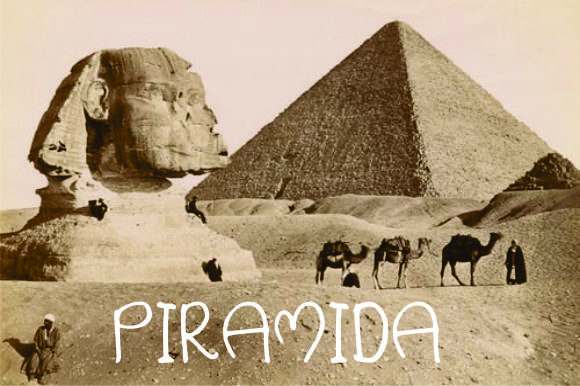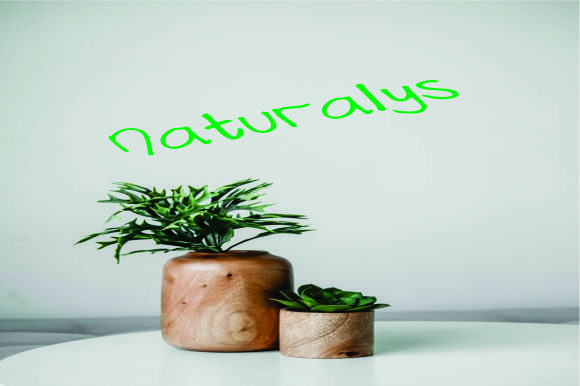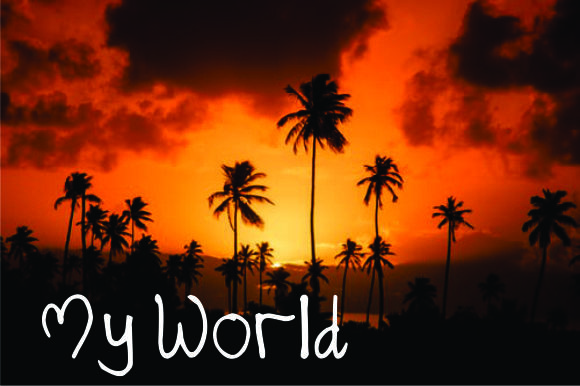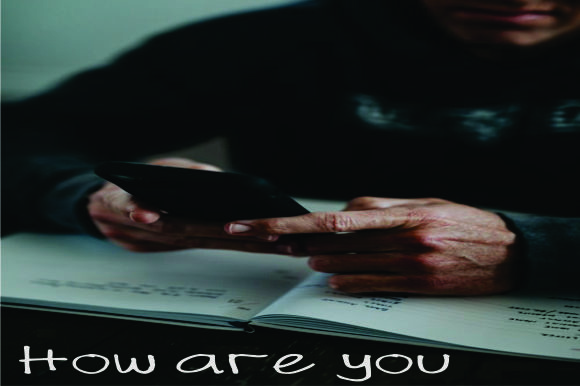
Bapakhe Font: Elevate Your Designs with a Unique Sans Serif Style
In the world of typography, fonts play a crucial role in defining the visual identity of a project. Whether you’re a designer, craftsperson, or simply a creative enthusiast, finding the right font can make all the difference. If you’re looking for a stylish and versatile sans serif font, look no further than Bapakhe. This charming font is perfect for a wide range of applications, from logos and web design to magazines, album covers, and more.
The Bapakhe Font: A Simple yet Unique Style
Bapakhe is a cute and simple sans serif font that boasts a distinctive style. Its clean lines, rounded edges, and balanced proportions make it an excellent choice for designers seeking a modern yet approachable look. The font’s simplicity ensures that it remains legible even at smaller sizes, making it suitable for a variety of applications.
Key Features of Bapakhe Font
- Unique Style: Bapakhe’s design is both simple and distinctive, making it stand out from more traditional sans serif fonts.
- Cute and Friendly: The font’s rounded edges and soft curves give it a friendly, approachable feel that’s perfect for brands and projects aiming for a more playful vibe.
- Highly Versatile: Bapakhe is suitable for a wide range of projects, including logos, web design, magazines, album covers, and more.
- Easy to Read: Despite its unique style, Bapakhe remains highly legible, even at smaller sizes.
Use Cases for Bapakhe Font
Bapakhe’s versatility makes it an excellent choice for various design projects. Here are some use cases where Bapakhe truly shines:
- Logo Design: Create a memorable brand identity with Bapakhe’s unique and stylish letters.
- Web Design: Enhance your website’s typography with Bapakhe, making it more engaging and user-friendly.
- Magazines and Editorials: Add a touch of modernity and sophistication to your magazine or editorial design.
- Album Covers: Give your music project a stylish and eye-catching title with Bapakhe.
- Branding and Packaging: Use Bapakhe to create a cohesive brand image across various packaging materials.
Tips for Using Bapakhe Font Effectively
To get the most out of Bapakhe, consider the following tips:
- Experiment with Sizes: Bapakhe’s legibility makes it suitable for use at various sizes. Experiment to find the perfect balance for your project.
- Combine with Other Fonts: Pair Bapakhe with complementary fonts to create visual interest and hierarchy.
- Adjust Tracking and Kerning: Fine-tune the spacing between letters to optimize readability and aesthetics.
Bapakhe is a charming sans serif font that offers a unique blend of simplicity and style. Its versatility, legibility, and friendly feel make it an excellent choice for designers and craftspersons seeking to elevate their projects. Whether you’re working on a logo, website, magazine, or album cover, Bapakhe is sure to give your design a stylish and modern look. So why wait? Give Bapakhe a try and discover the perfect font for your next creative endeavor.